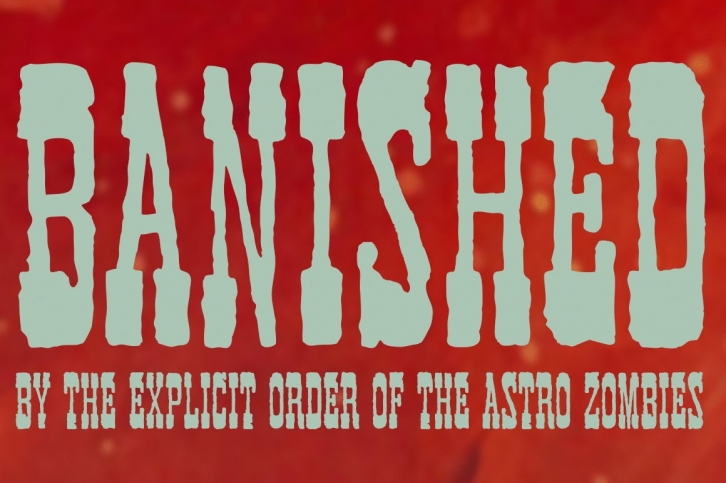
The Backstory Scoop
Banished was inspired by posters for the 1968 Cult Cinema Classic, “Astro Zombiesâ€, but it exudes the rough and tumble, chewed up and spit out Old West era. Banished dives head first into all of the nostalgic clichés of the old west, as well as the cult classic that inspired it.
- 388 glyphs - including Capitals, Lowercase (Alt. Capitals), Numerals, Alt. Numerals, Punctuation and an extensive character set that covers multilingual support of latin based languages. (see the 6th graphic for a preview of the characters included)
- Contextual Alternates that auto-switches between Capitals & Lowercase (Alt Capitals) glyphs, as well as Numerals and Alt Numerals for visual randomness. To access the Contextual Alternates feature, you will need to be using software with Opentype compatibility otherwise you can access the alternate glyphs via a Glyphs panel.
- Stylistic Alternates feature that swaps all default Numerals with their Alternates Numerals
- You're in need of a good rustic slab serif typestyle with a narrow width and gritty feel